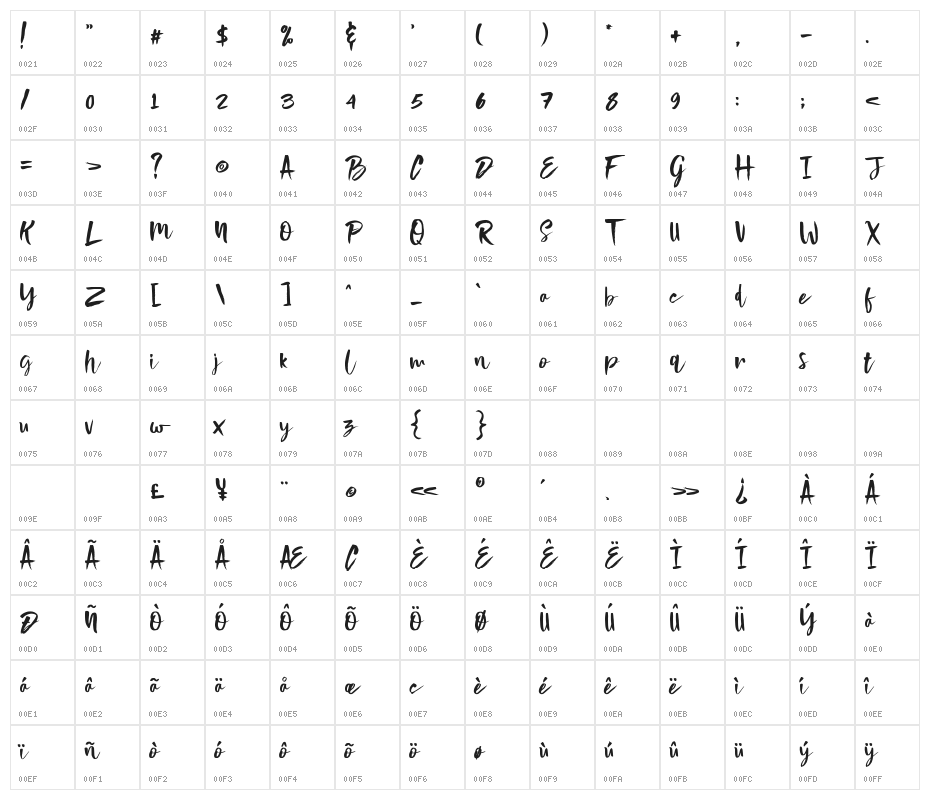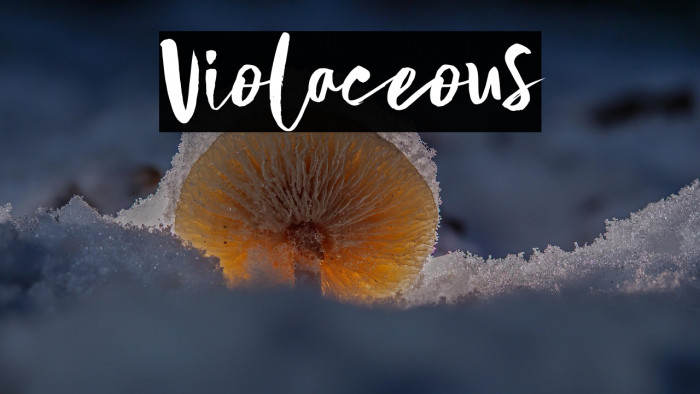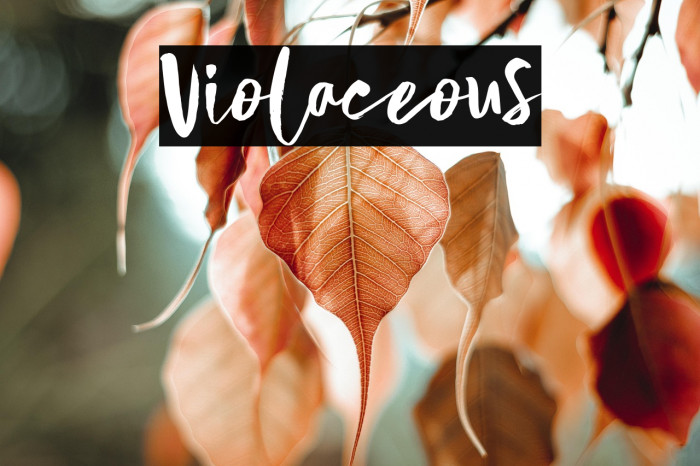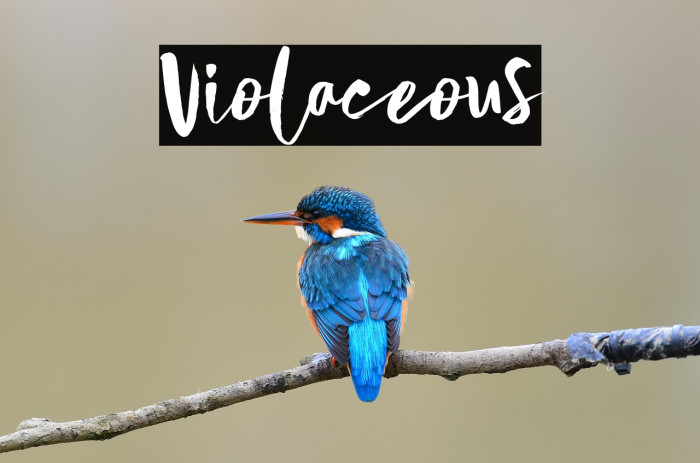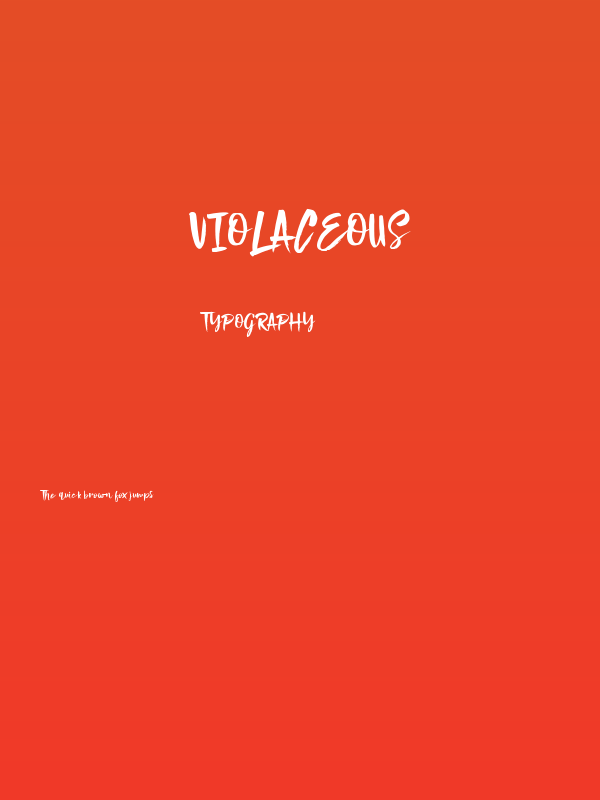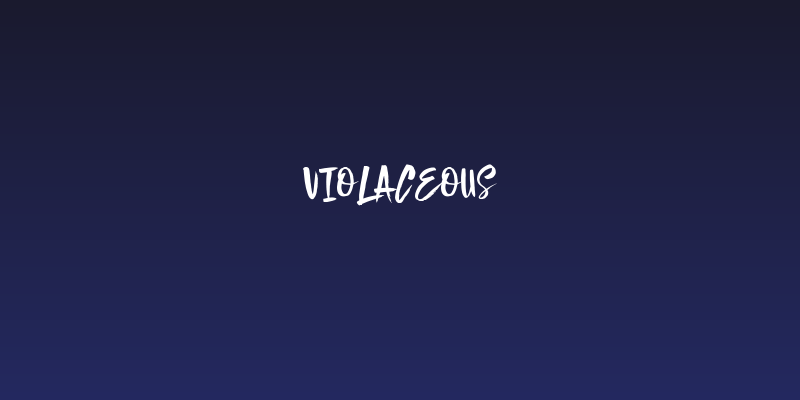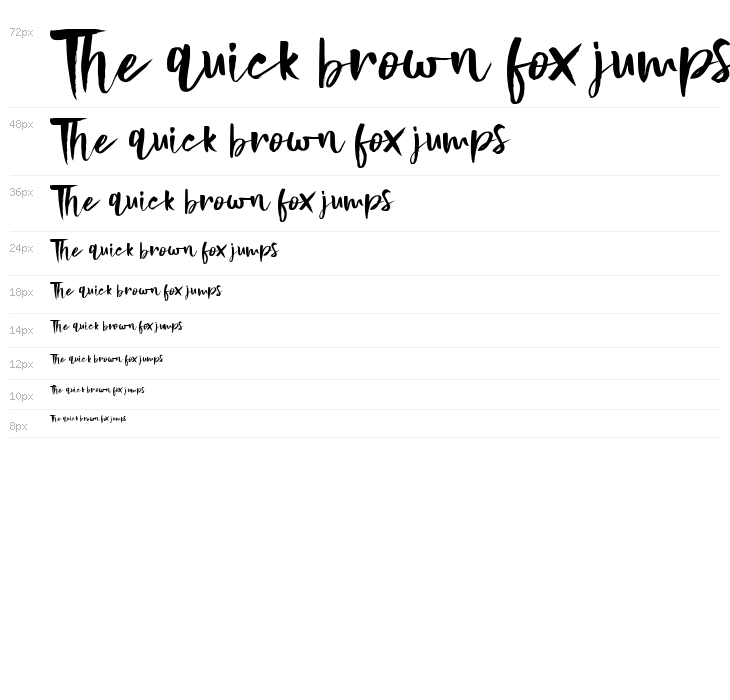
Violaceous Font
Violaceous Description
This font exudes a lively and dynamic energy with its bold, brush-like strokes. The uppercase letters are characterized by their dramatic flair and sweeping curves, while the lowercase letters maintain a playful yet elegant flow. Numbers and special characters are crafted with the same expressive style, making them stand out with their artistic flair. The overall appearance is reminiscent of hand-painted signage, offering a sense of authenticity and creativity. The font's design is perfect for projects that require a personal touch, combining both modern and artistic elements.
| Overall Style | Modern, Artistic |
| Proposed Projects | Ideal for branding, posters, invitations, and any creative project that benefits from a personal, artistic touch. |